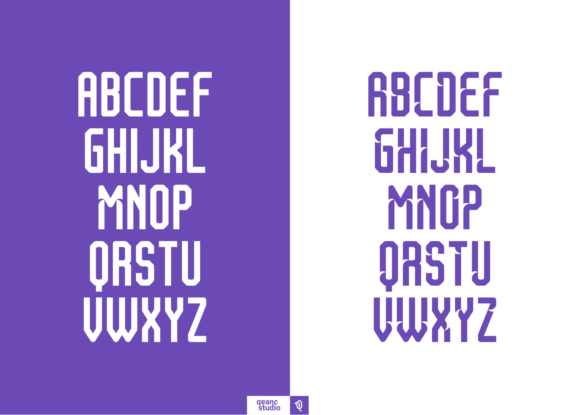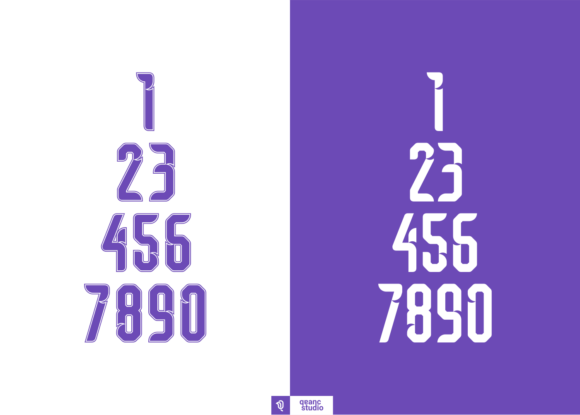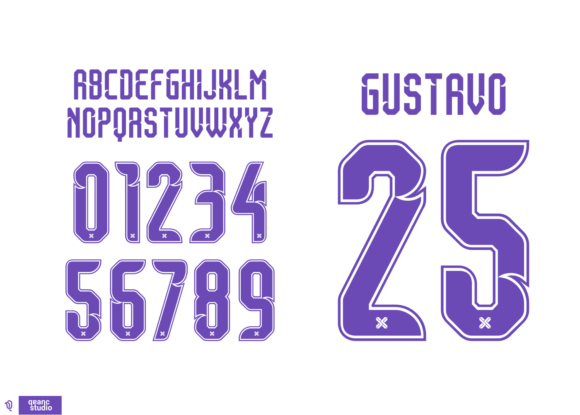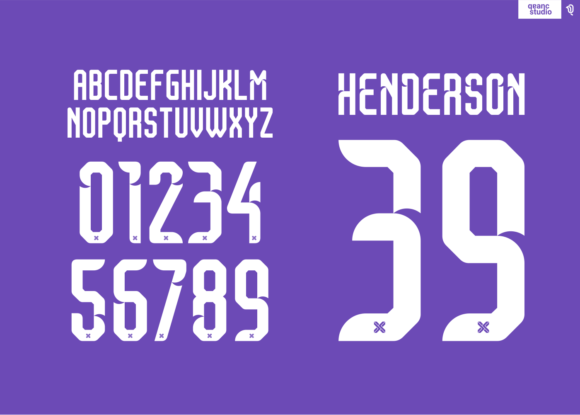
Draco Font: The Ultimate Choice for Sports and Racing-Themed Projects
In the world of typography, fonts play a crucial role in conveying the tone and personality of a design. For designers and crafters working on sports or racing-themed projects, finding the right font can be a daunting task. However, if you’re looking for a modern and awesome display font that can elevate your designs, look no further than Draco Font.
What is Draco Font?
Draco Font is a stunning display font inspired by the world of football. Its sleek and modern design makes it perfect for a wide range of applications, from logos and posters to t-shirts and more. With its unique and sporty vibe, Draco Font is sure to make your designs stand out from the crowd.
Key Features of Draco Font
- Modern and Awesome Design: Draco Font boasts a modern and awesome design that is sure to grab attention.
- Sports and Racing-Themed: Inspired by football, Draco Font is perfect for sports and racing-themed projects.
- High Versatility: Use Draco Font for a wide range of applications, including logos, posters, t-shirts, and more.
- Easy to Read: Despite its bold and sporty design, Draco Font remains easy to read, making it perfect for headlines and titles.
Why Choose Draco Font?
So, why should you choose Draco Font for your sports or racing-themed projects? Here are just a few reasons:
- Unique and Eye-Catching: Draco Font’s unique design ensures that your projects will stand out from the crowd.
- Professional and Modern: With Draco Font, you can give your projects a professional and modern look that’s sure to impress.
- Use for Headlines and Titles: Use Draco Font for headlines and titles to add a bold and sporty touch to your designs.
Draco Font is perfect for designers and crafters who work on sports or racing-themed projects. Whether you’re designing a logo, poster, or t-shirt, Draco Font is sure to elevate your designs and make them stand out.
In conclusion, Draco Font is an awesome and modern display font that’s perfect for sports or racing-themed projects. With its unique and sporty design, Draco Font is sure to make your designs stand out from the crowd. So, add Draco Font to your creative ideas and notice how it will take your designs to the next level.